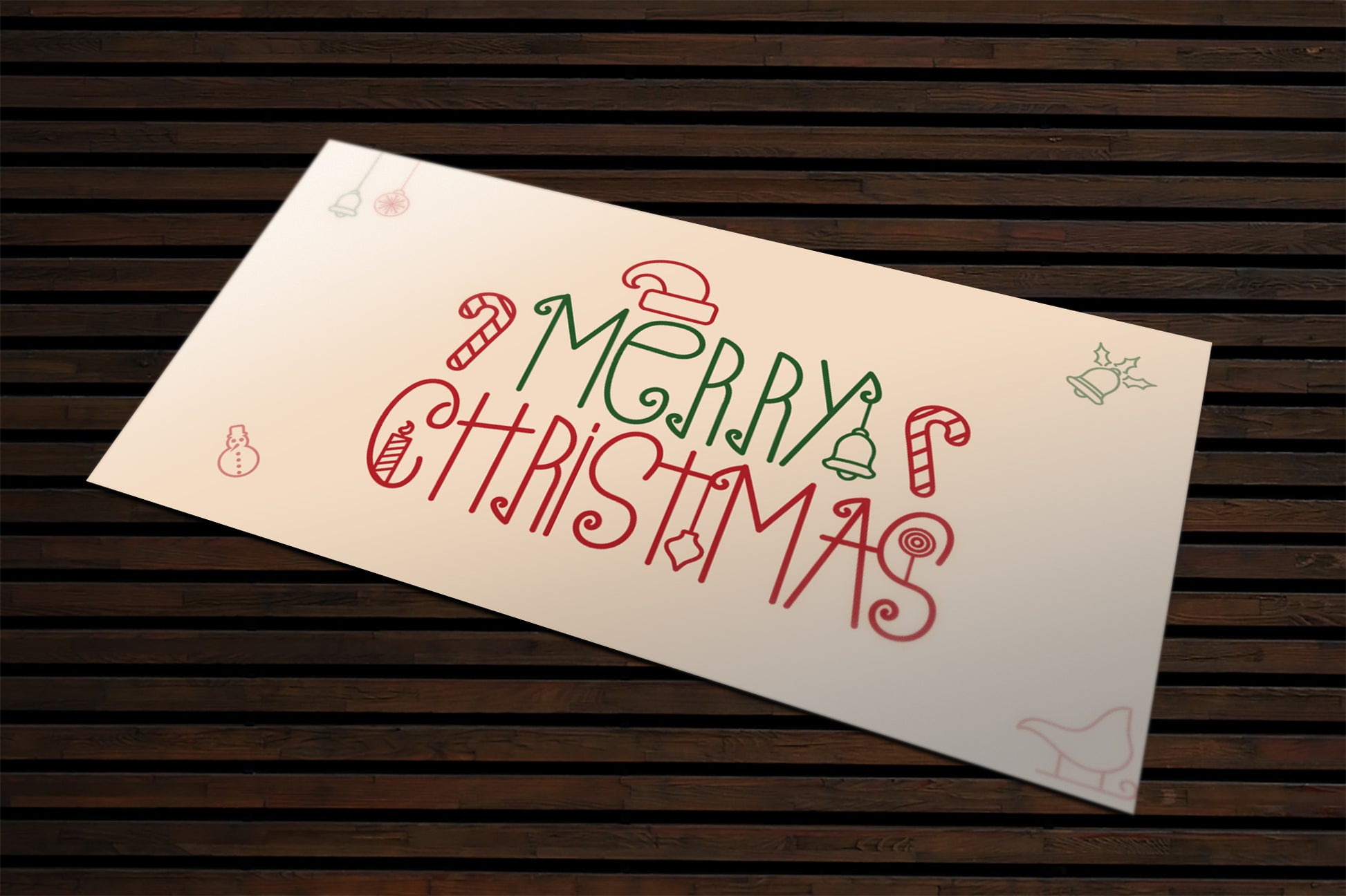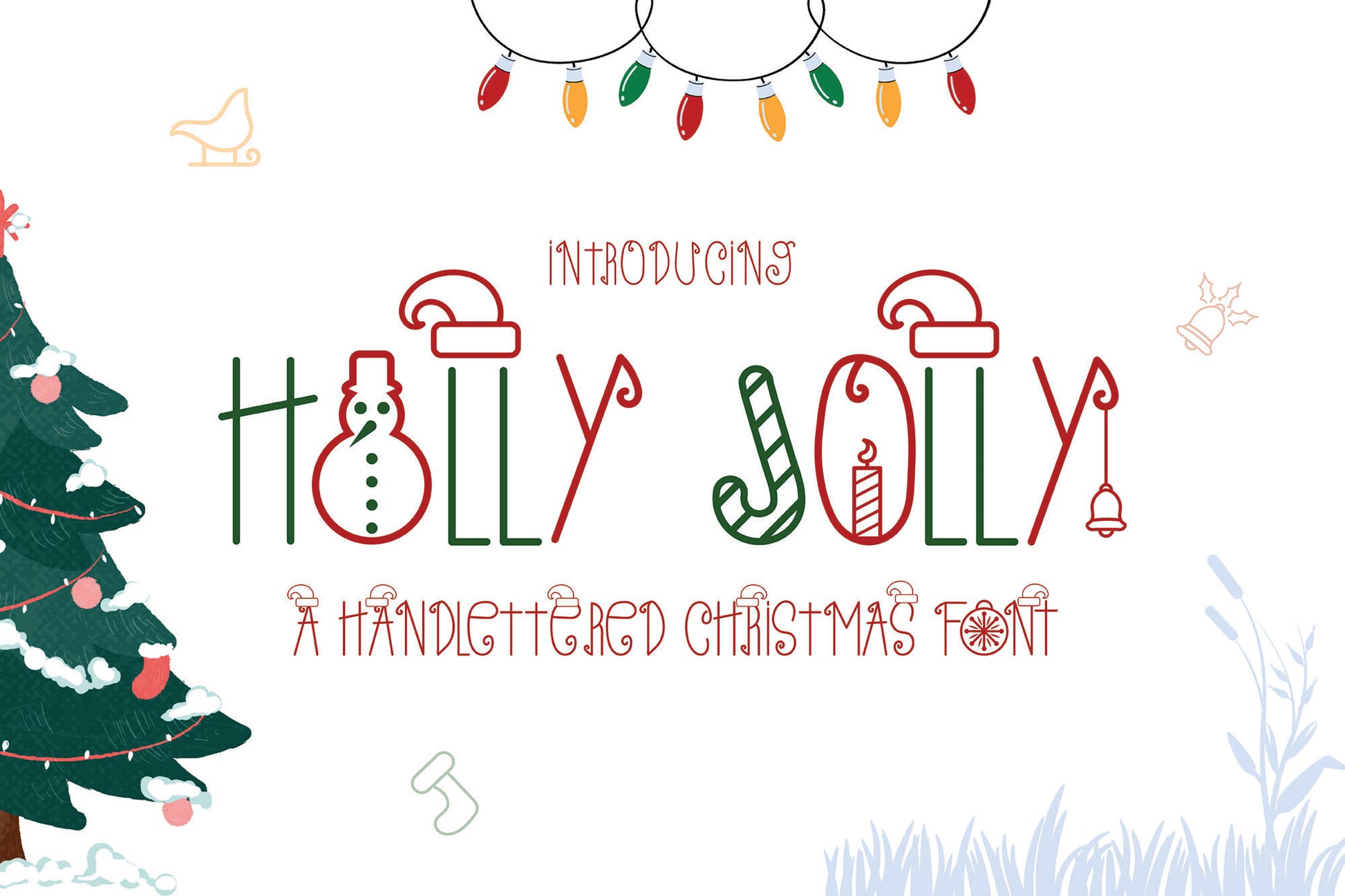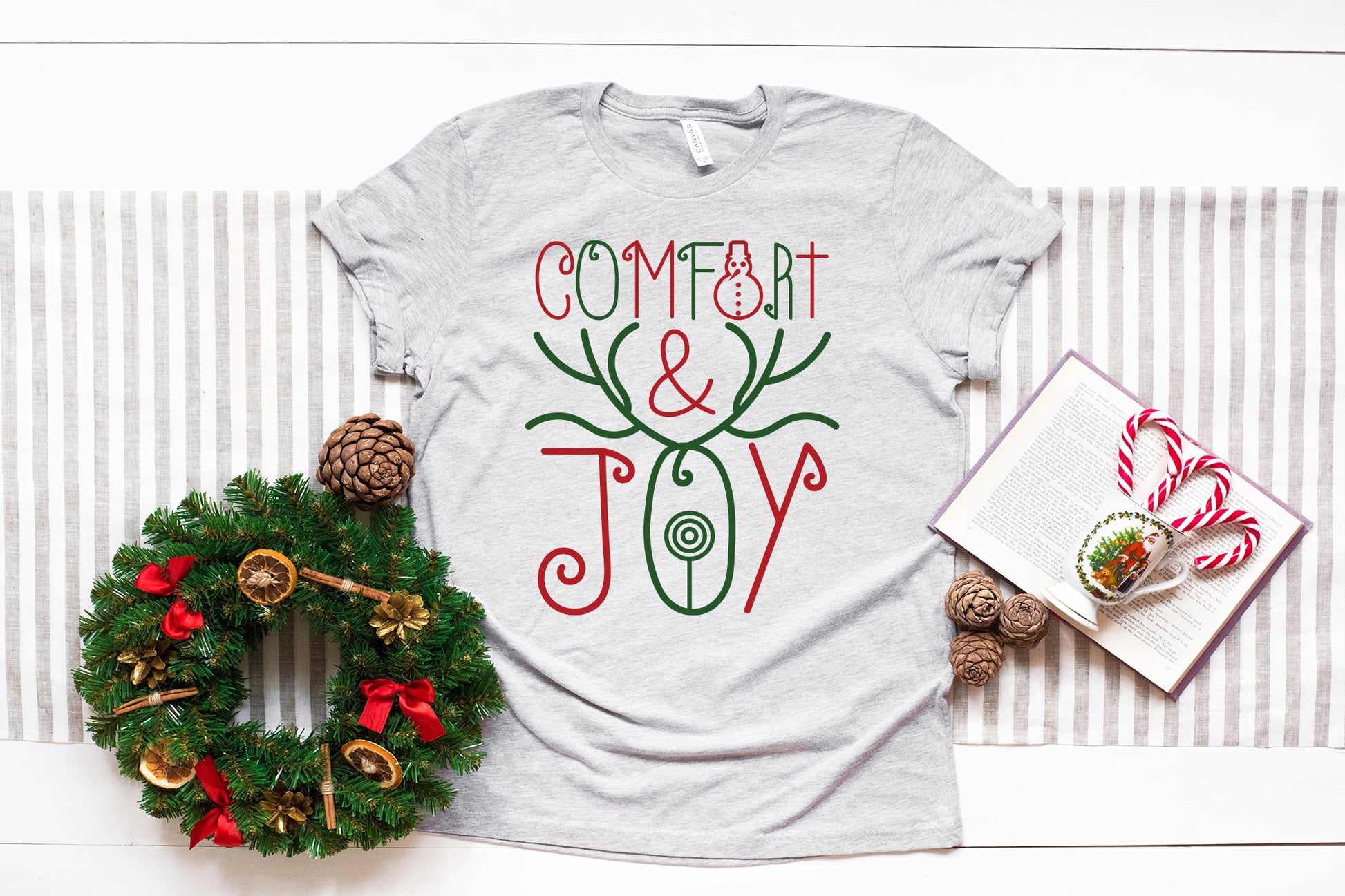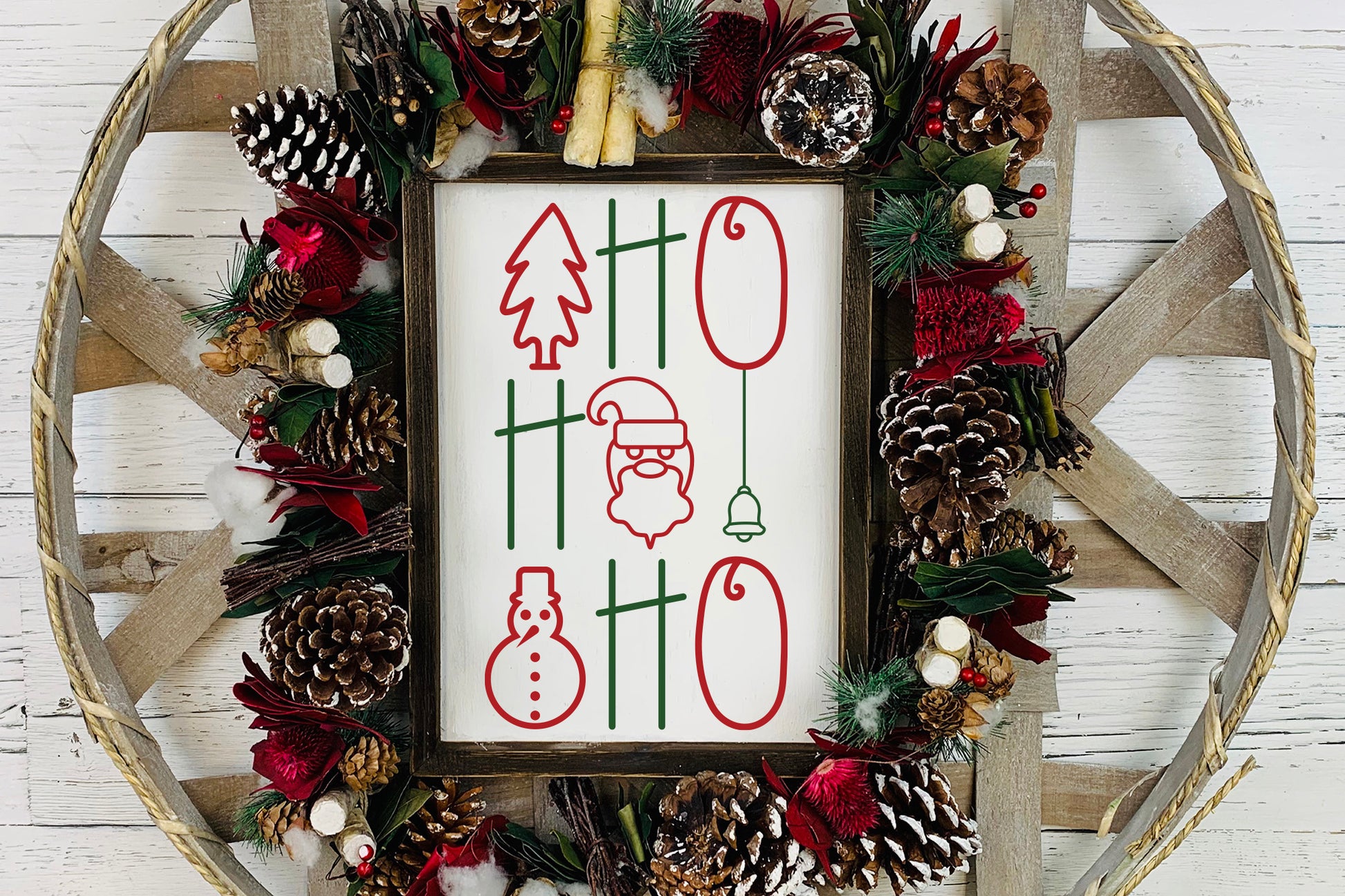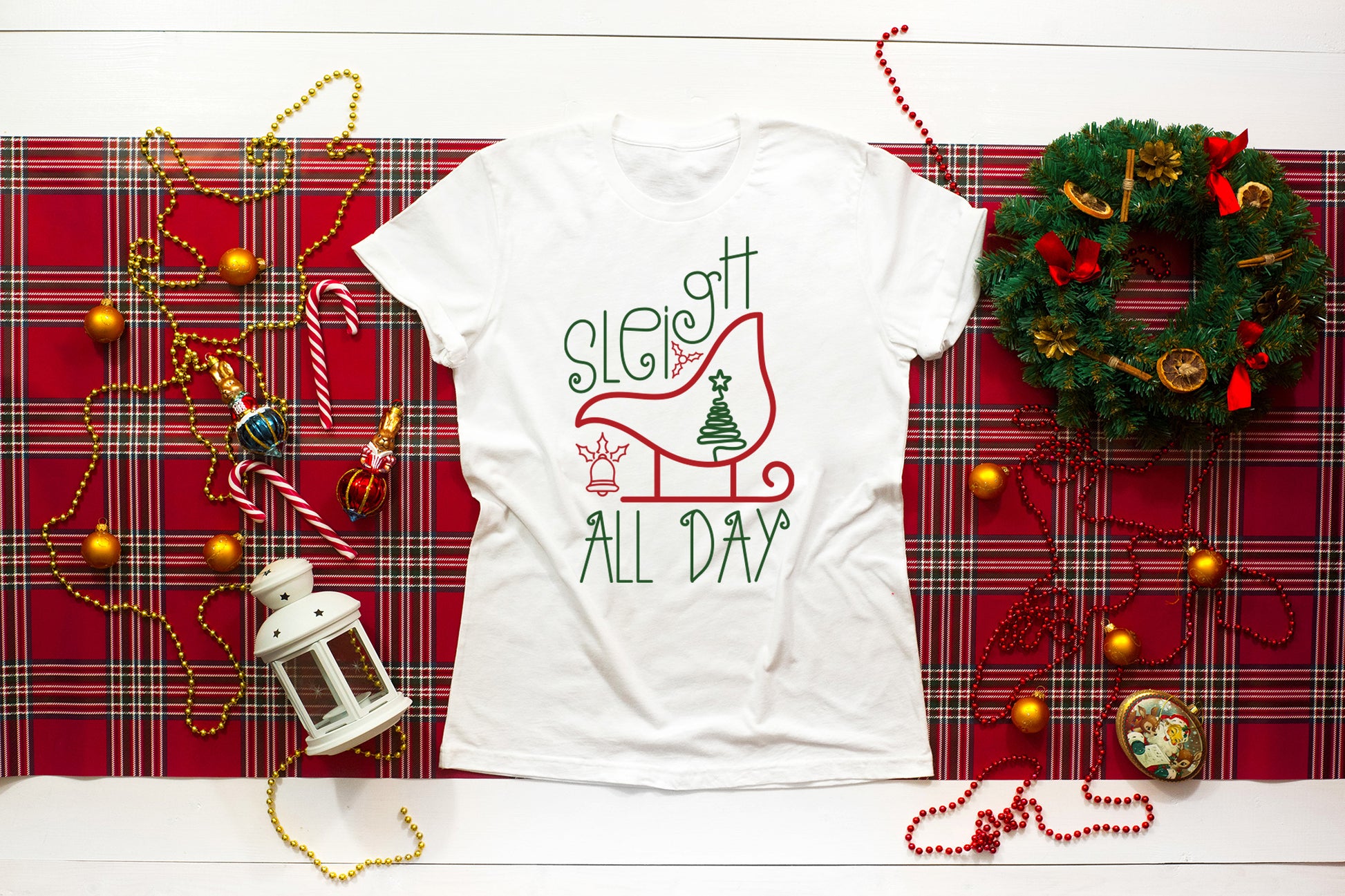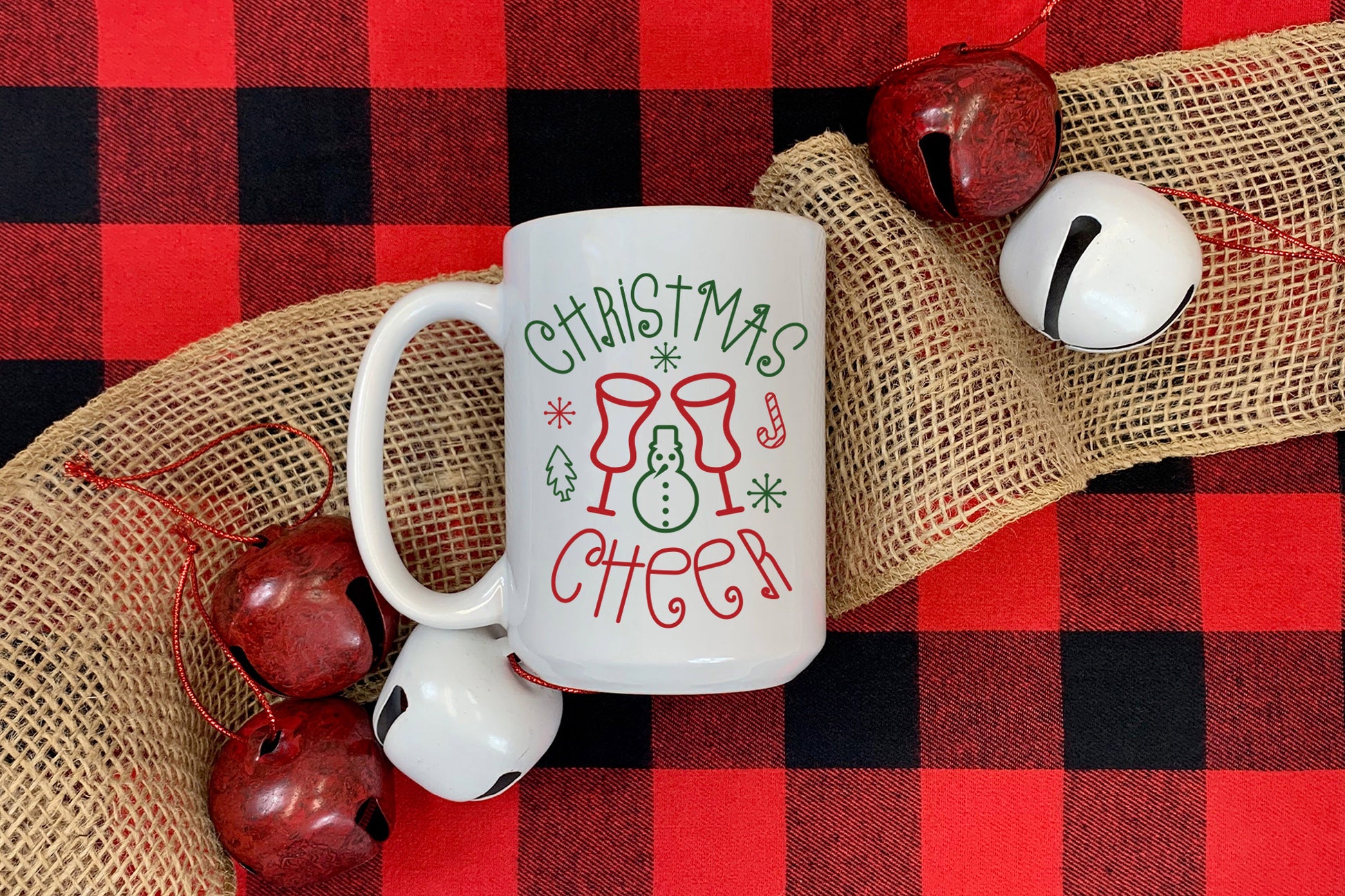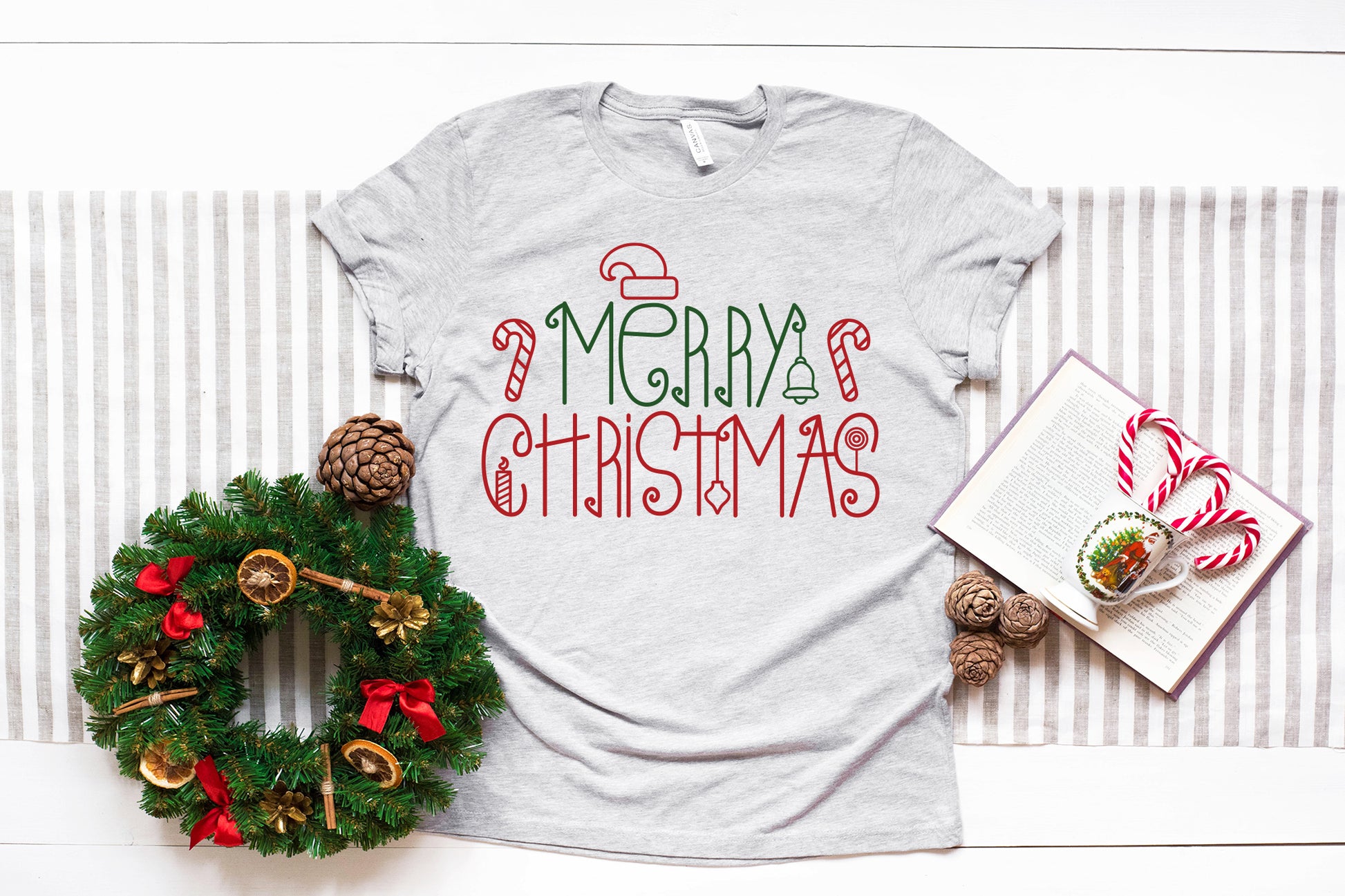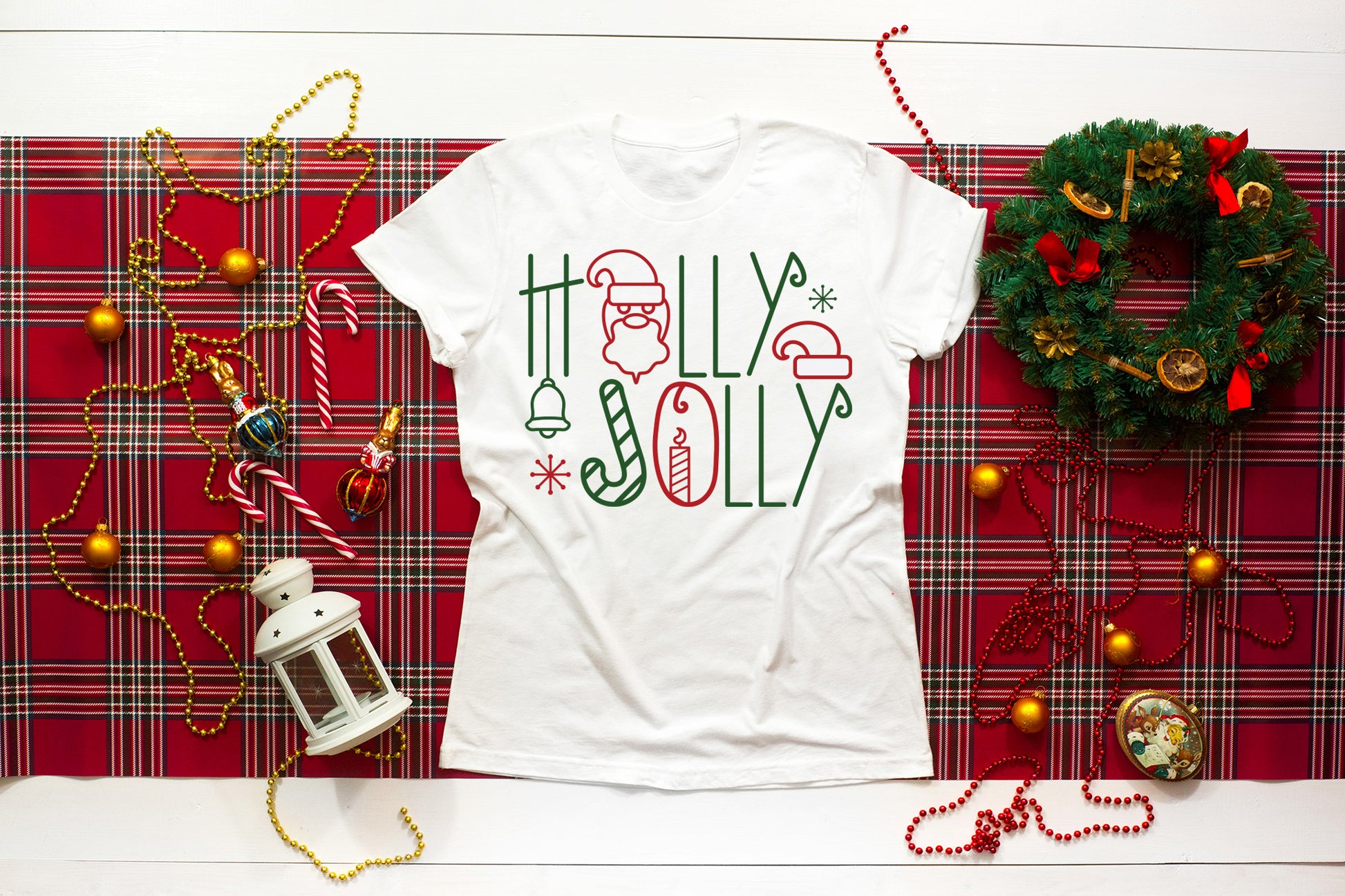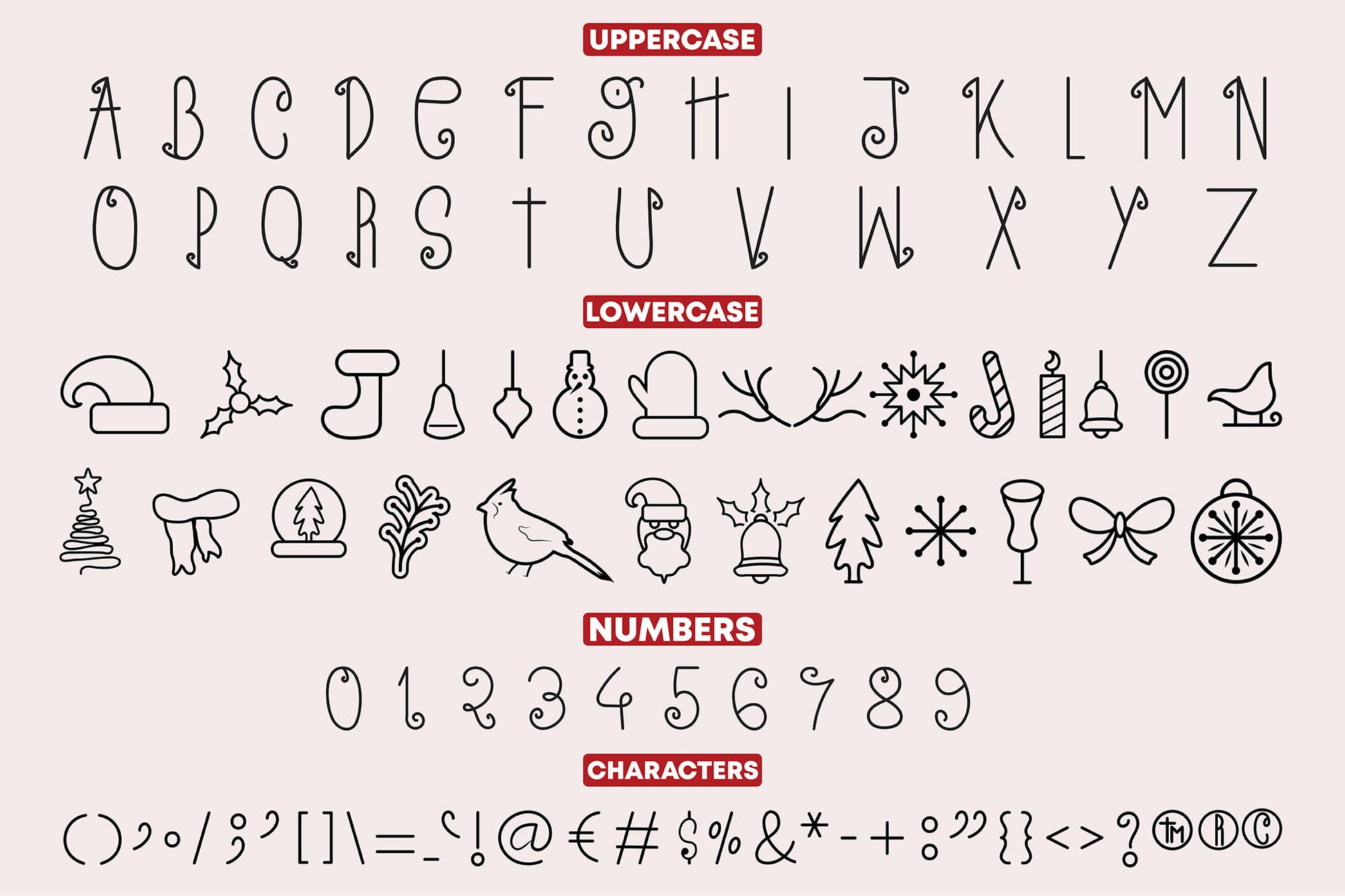
Holly Jolly - A Handlettered Christmas Font
Introducing ‘Holly Jolly’ – a handlettered Christmas font that captures the spirit of the season, adding a touch of whimsy and warmth to your projects. This handlettered font can be used for anything such as t-shirt designs, greeting cards, invitations, mugs, banners, and much more!